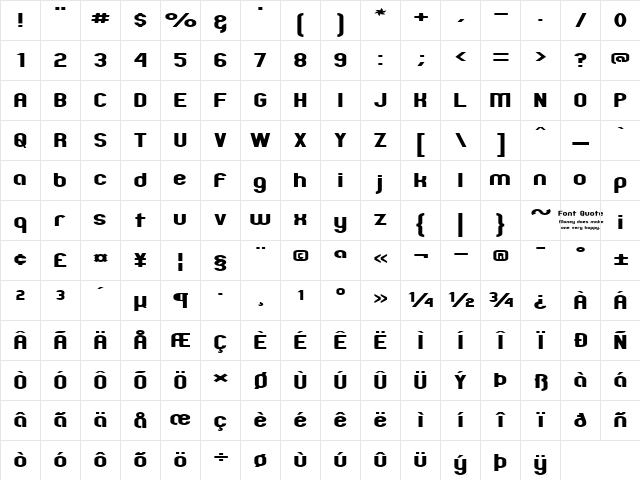
Zillah Modern Expanded Regular
Design Context for Zillah Modern Expanded Typeface
Zillah Modern Expanded is a composed and adaptable typeface that performs quietly and consistently across a wide range of design contexts.